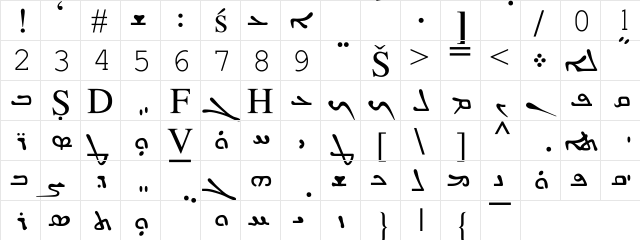
CalSyriac TR Font Preview
CalSyriac TR
Design Context for CalSyriac Typeface
CalSyriac offers clean, dependable letterforms without strong stylistic allegiance, making it a practical choice for designers who need flexibility.